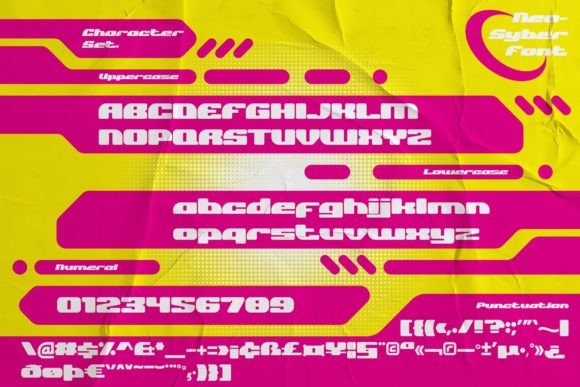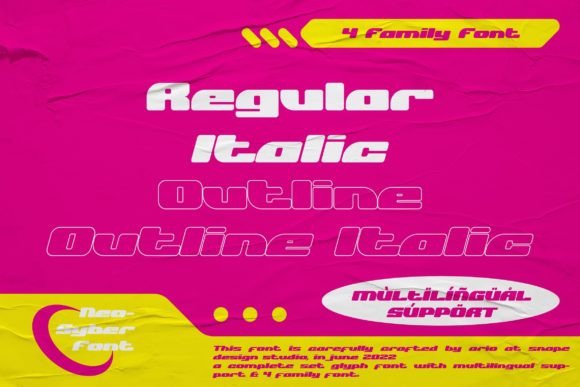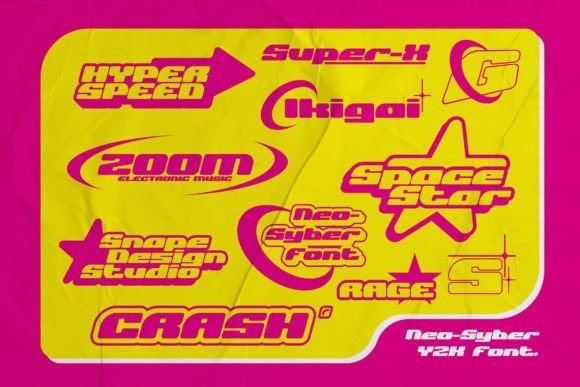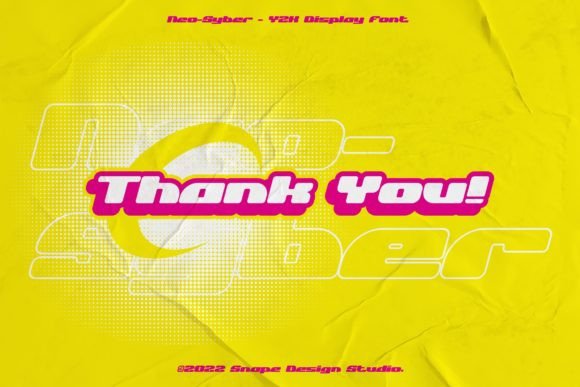
Introduction to Neo Syber Font
Neo Syber is a futuristic display font.
Heavy influence by Y2K design era through music and their pop culture, perfect for technology, digital, space galaxy theme Also suitable for movies, films, logos, posters, games, book covers, headlines, titles, and many more projects.
Key Features of Neo Syber Font